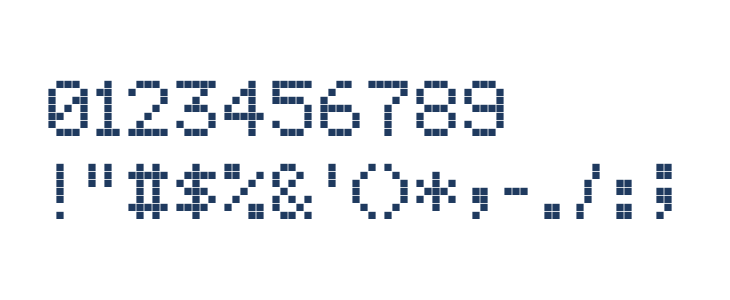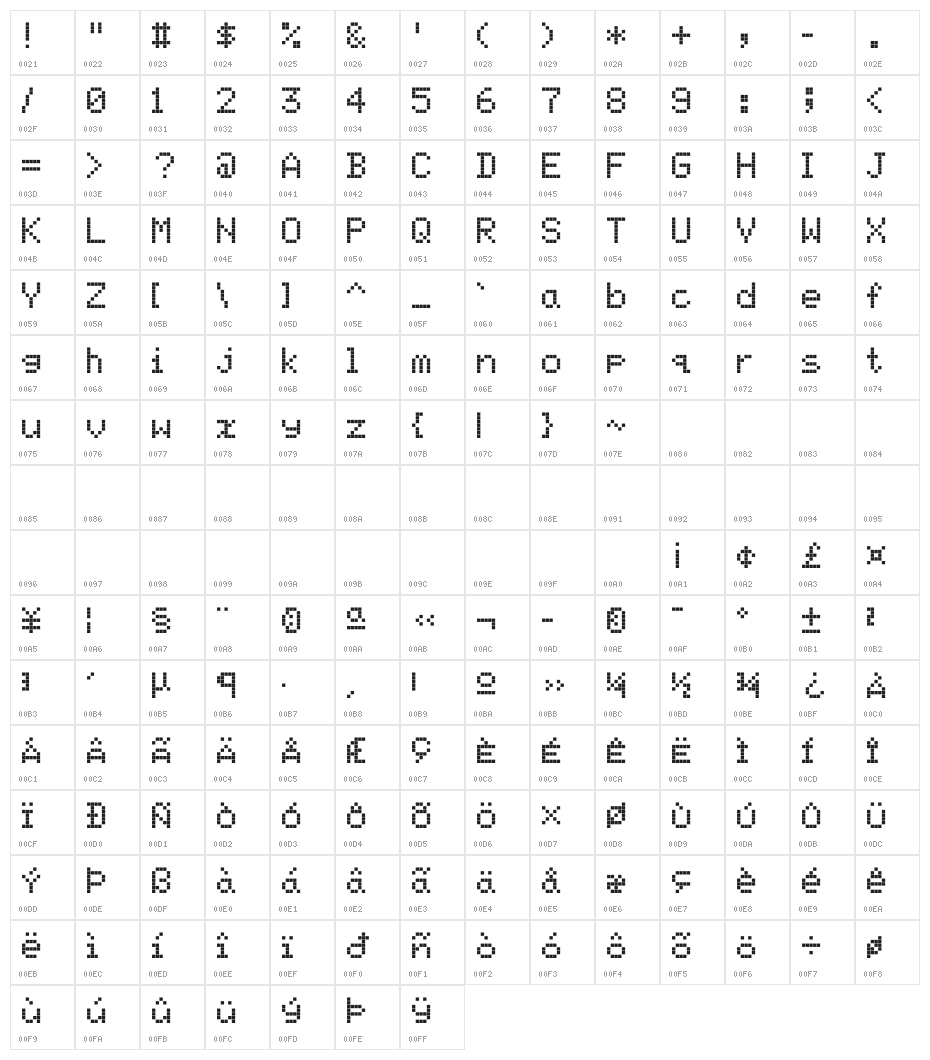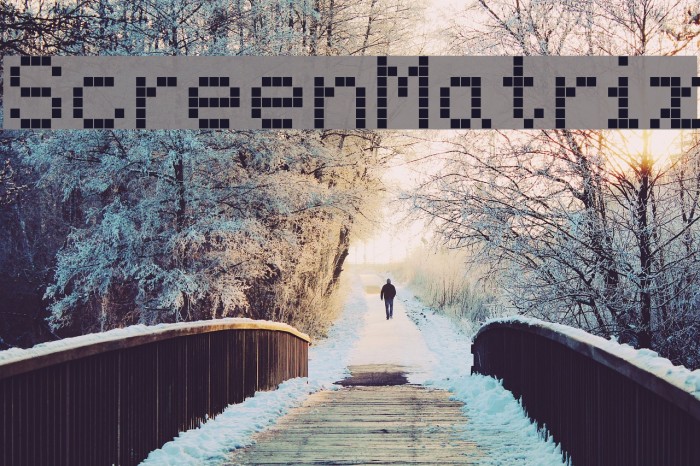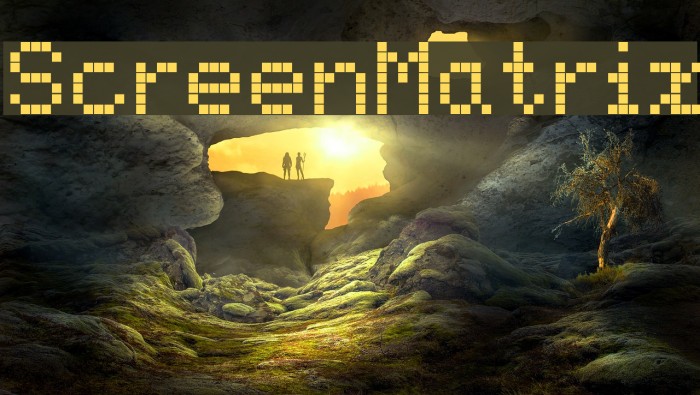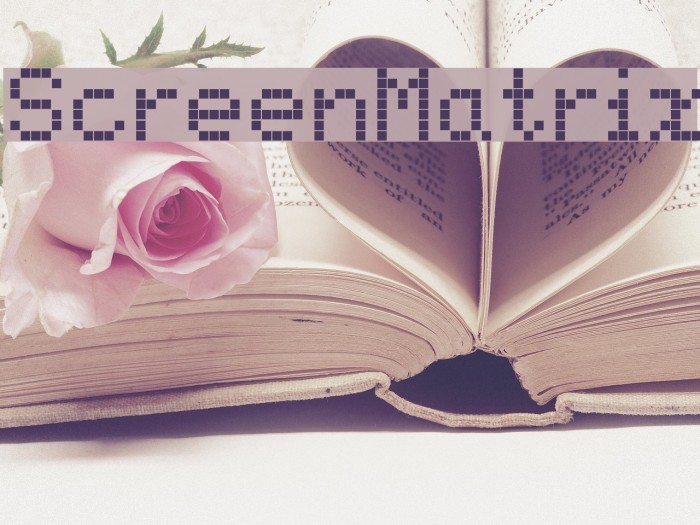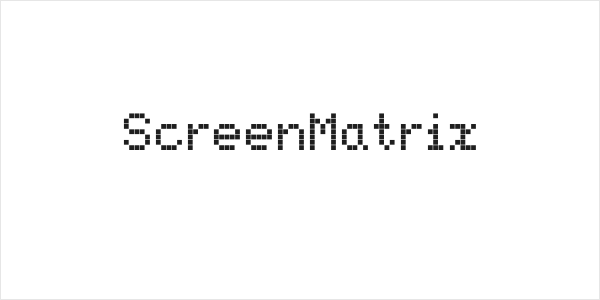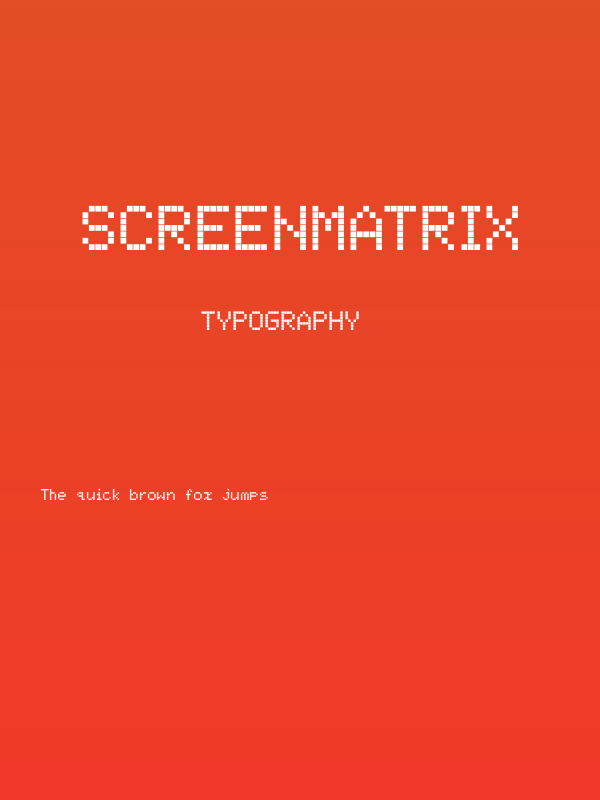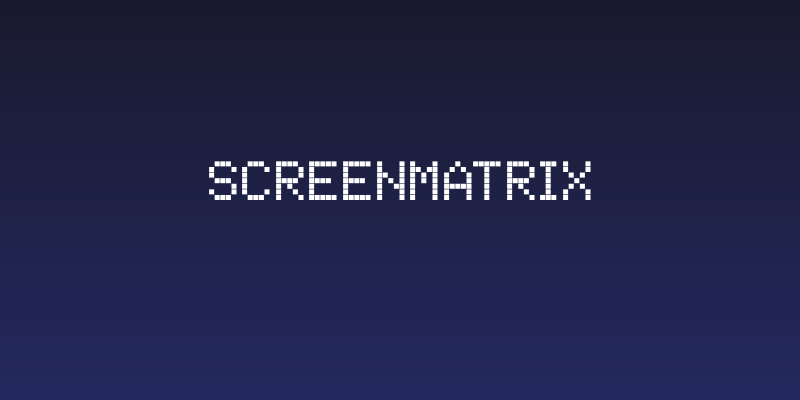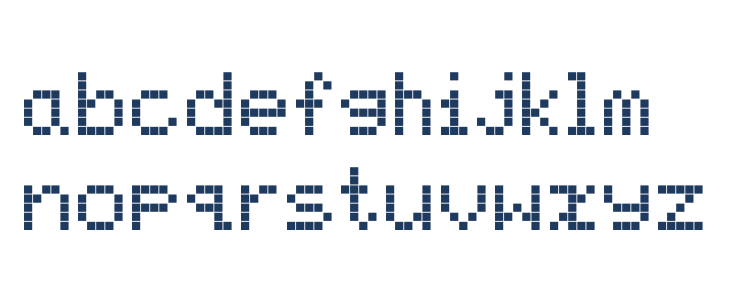
ScreenMatrix Font
ScreenMatrix Description
This font features a distinctive pixelated design, reminiscent of early digital displays and retro video games. Each character is constructed from a grid of small squares, creating a blocky and geometric appearance. The uppercase and lowercase letters maintain a consistent height, contributing to a uniform and cohesive look. Numbers and special characters follow the same pixelated style, ensuring visual harmony across all elements. The font's simplicity and clarity make it highly legible, even at smaller sizes, while its nostalgic aesthetic adds a playful and tech-inspired touch.
| Overall Style | Retro, Digital |
| Use Case | Logos, Headlines, Digital displays |
| Proposed Projects | Ideal for retro-themed designs, video game graphics, digital art projects, and tech-related branding. |